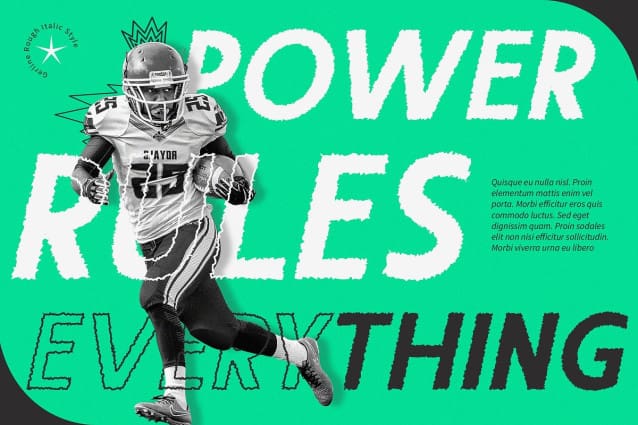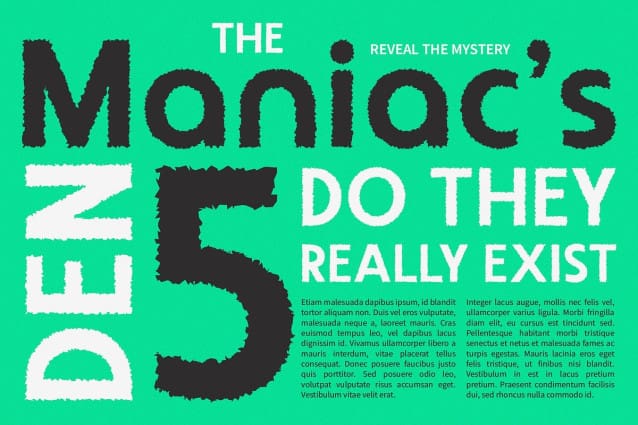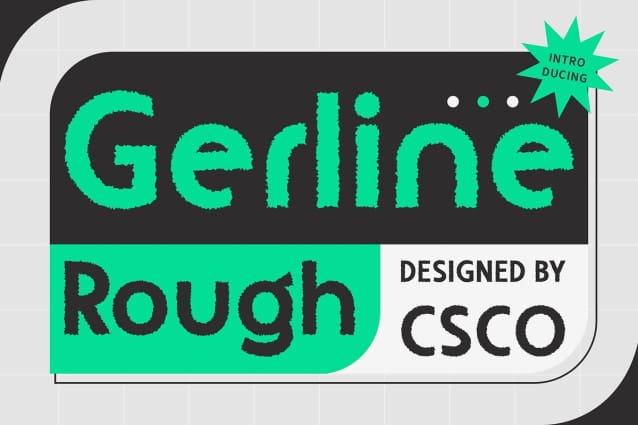
Gerline Rough Font
Gerline Rough Font is a modern sans-serif font with a rough vibe, perfect for adding character and charm to your designs. Its unique style is ideal for headlines, posters, and other display purposes where you want to make a bold statement.
With its condensed form, Gerline Rough maximizes space efficiency without compromising readability. This makes it perfect for situations where space is limited, such as banners and headers.
Experience the subtle elegance of Gerline Rough’s rough vibe, perfect for creating sophisticated displays with a touch of rawness. The roughness adds a unique charm to your designs, making them stand out.
Despite its rough vibe, Gerline Rough offers versatility for a wide range of design applications. From posters to packaging and logos, GerlineRough adds a distinctive flair to your projects, ensuring they are memorable and impactful.